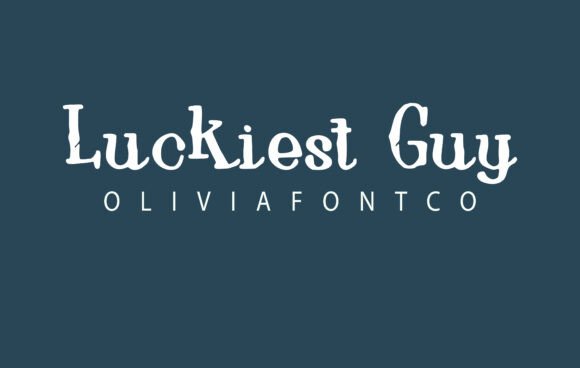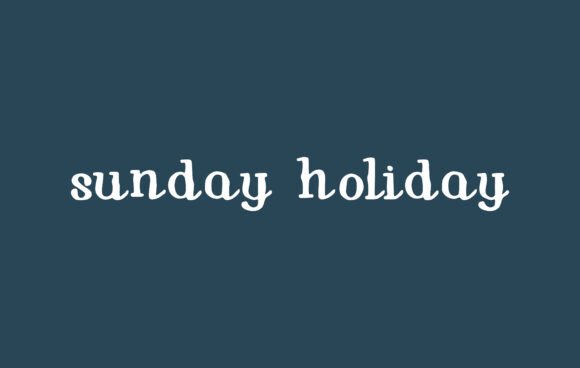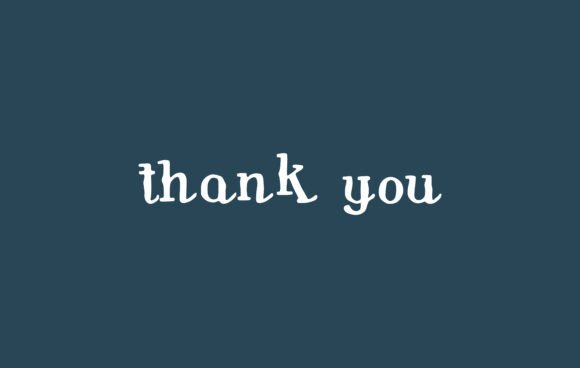
Luckiest Guy Font
About the Luckiest Guy Font
From logos to headlines, the Luckiest Guy Font is the perfect choice for making a lasting impression. Luckiest Guy font is an authentic handwritten font with a romantic touch. Expertly designed to be a true favorite, this font has the potential to take your creative ideas to the highest level
Its romantic, handwritten style makes Luckiest Guy ideal for projects requiring a touch of warmth and personality, such as wedding stationery, branding for boutiques or cafes, and social media graphics. Headlines and short text blocks benefit most from its legibility; however, its informal nature makes it less suitable for large blocks of body text or UI elements where clarity and efficiency are paramount.
Consider pairing Luckiest Guy with a clean sans-serif like Montserrat for a balanced contrast, or a delicate serif like Playfair Display for a more refined aesthetic. For a playful feel, a simple geometric sans-serif would also complement its organic curves.
The overall personality of Luckiest Guy is friendly and approachable, yet sophisticated. It evokes feelings of happiness and intimacy, making it well-suited to brands focusing on love, connection, and handcrafted quality.
Luckiest Guy Font Usage Examples
Luckiest Guy Font Example